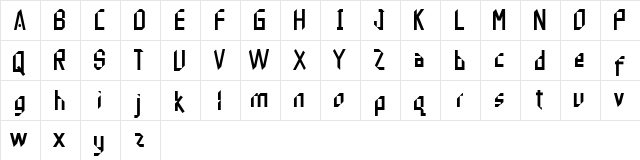
Andromedia Font Preview
Andromedia Andromedia
Andromedia Font Details
| Style | Andromedia |
| Foundry | Krisna Teja |
Design Context for Andromedia Typeface
Andromedia offers clean, dependable letterforms without strong stylistic allegiance, making it a practical choice for designers who need flexibility.